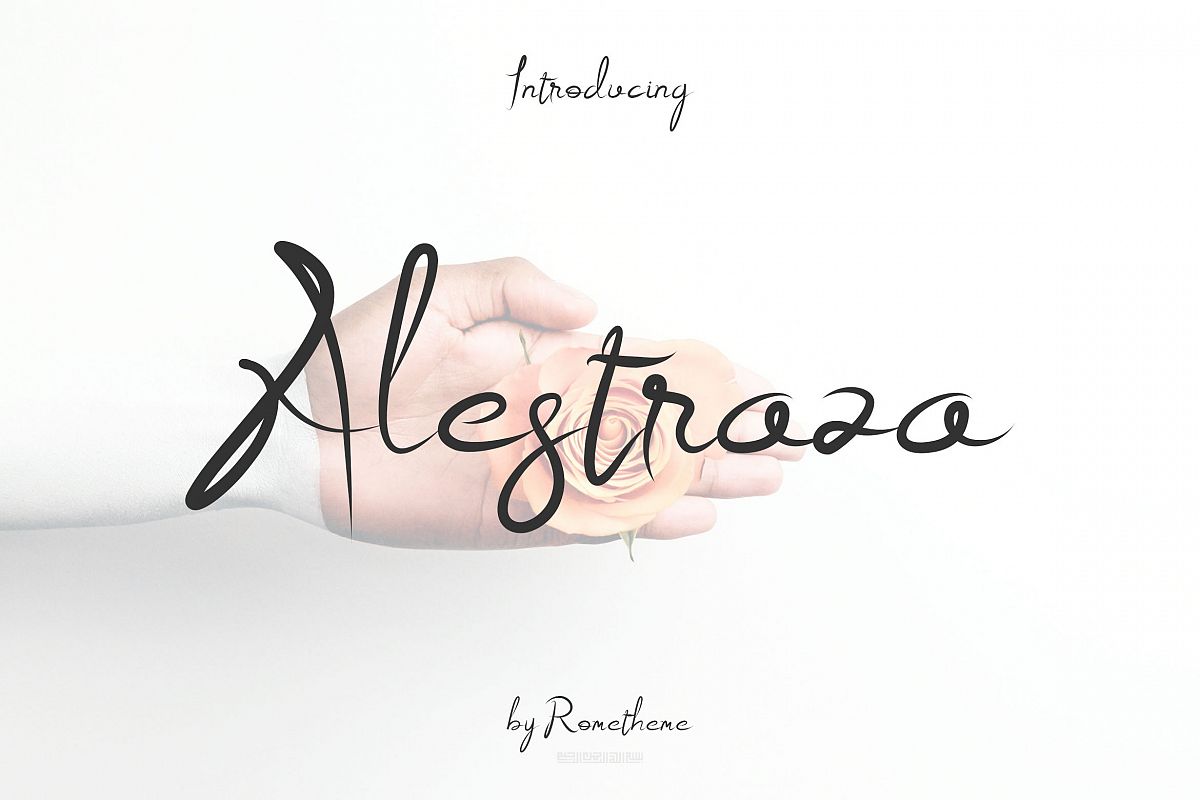
Alestraza Modern Script font
Alestraza solid
Alestraza
Alestraza is a simple and classy handwritten font, this font looks elegant, classy, readable, stylish, catchy and easy to use.